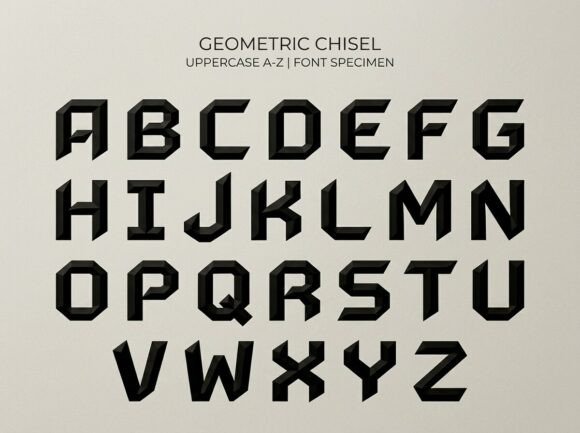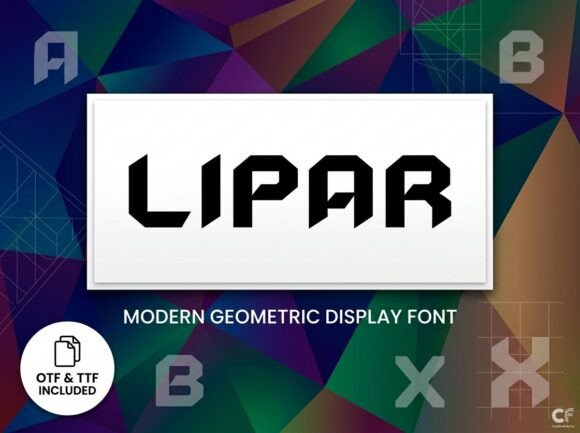
Introduction to Lipar Font
You’ve finally nailed the concept for your creative project, and now it’s time to bring it to life with the perfect font. Imagine the excitement of watching your design unfold with each carefully selected element, and the Lipar Font is about to be your new best friend. With its unique blend of artistic flair and professional sophistication, this decorative display font is designed to make a statement and elevate your creative endeavors.
As a valuable resource for designers, the Lipar Font offers a high-quality design solution that’s perfect for logos, titles, and packaging. Whether you’re looking for a free download or a premium design resource, this versatile font is sure to deliver. With its transparent background and seamless performance across all operating systems, you can focus on bringing your creative vision to life without worrying about compatibility issues.
- The font includes a range of characters, including uppercase and lowercase letters, numbers, and special characters, making it suitable for various creative projects.
- Lipar Font is designed to be highly legible, with a clear and crisp font style that is perfect for headings and titles.
- Lipar Font’s unique characteristics include its modern and minimalist design, making it an excellent choice for designers looking for a clean and elegant font.
Honest Review: Lipar Font
As a designer, I’m always on the lookout for high-quality design resources that can elevate my creative projects. Recently, I stumbled upon the Lipar Font, and I’m excited to share my honest review with you.
- ✨ The design is sleek and modern, perfect for creating a professional and sophisticated look in any project.
- ✨ The font is highly customizable, allowing for easy adjustments to suit your design needs.
- ✨ The transparent background makes it easy to use the font over any background image or color.
Any limitations:
- ⚠️ The Lipar Font may not be suitable for projects requiring a bold, playful, or handwritten style.
- ⚠️ The font may not be as versatile as other fonts in terms of font sizes and styles.
Overall, I’m impressed with the Lipar Font. It’s a solid choice for designers looking for a high-quality, modern font for their creative projects. While it may have some limitations, it’s definitely worth checking out, especially considering it’s free to download.
Lipar Font is ideal for various design projects, including logo design, business cards, and brochures. Its versatility and high-quality design make it a popular choice among designers.